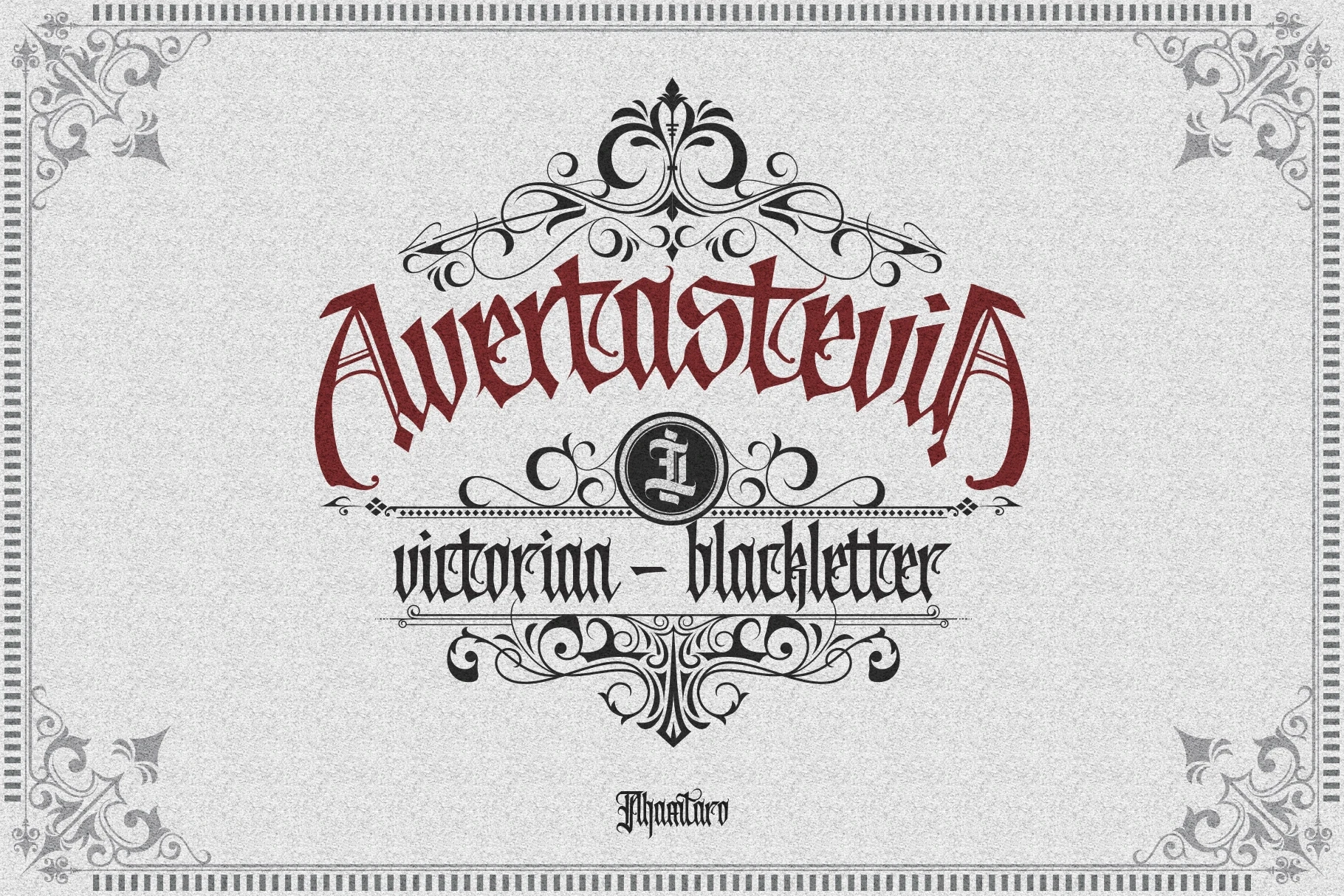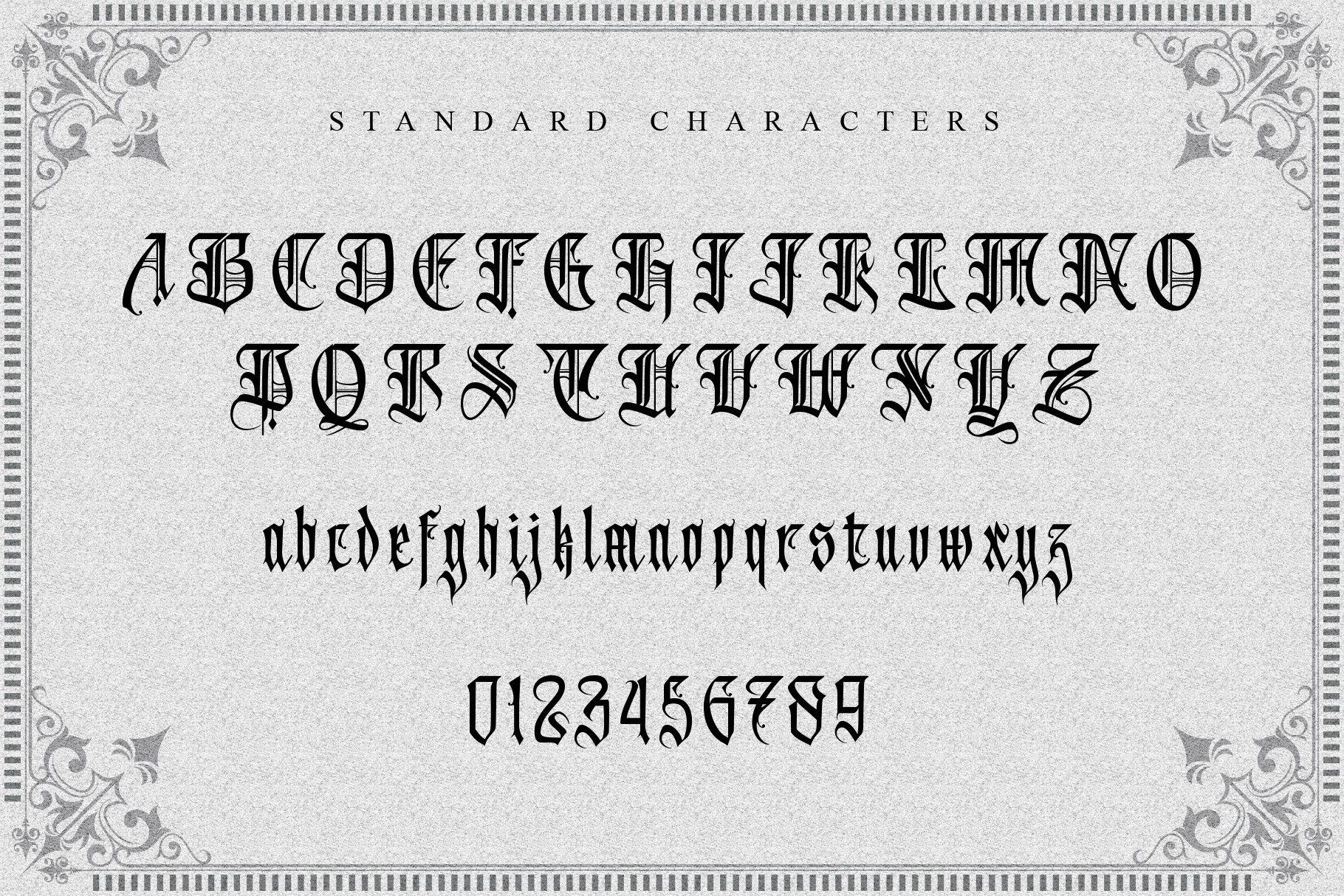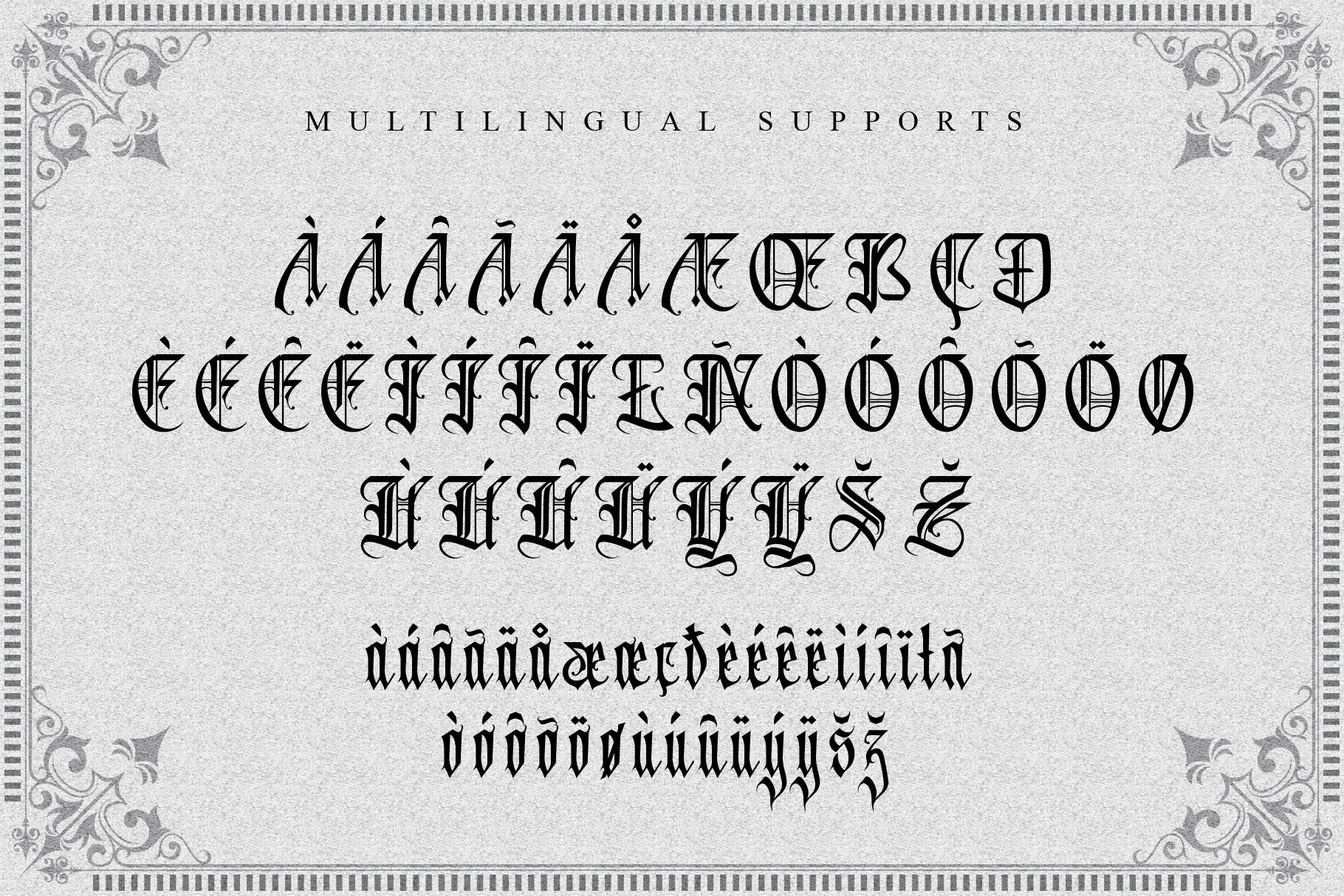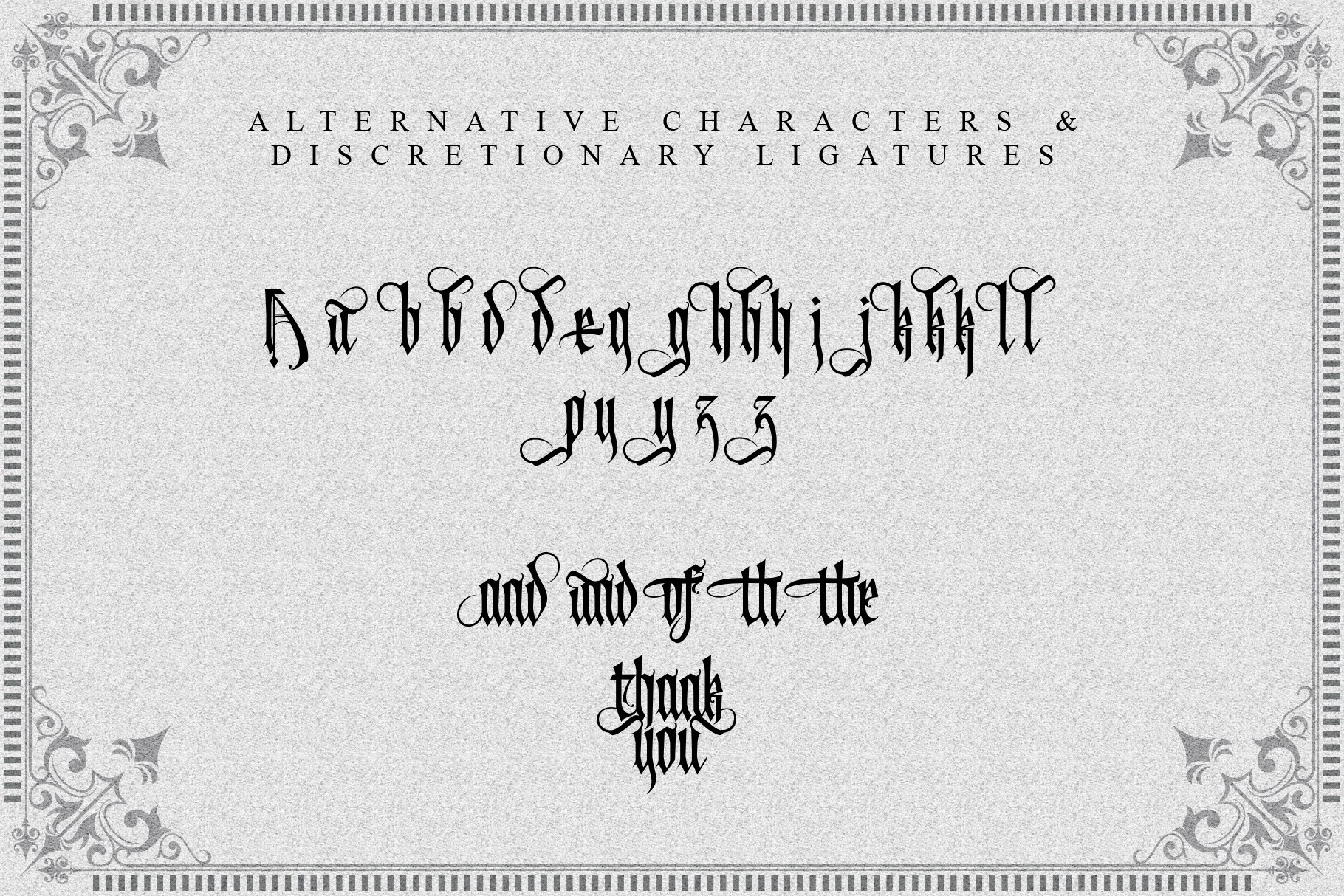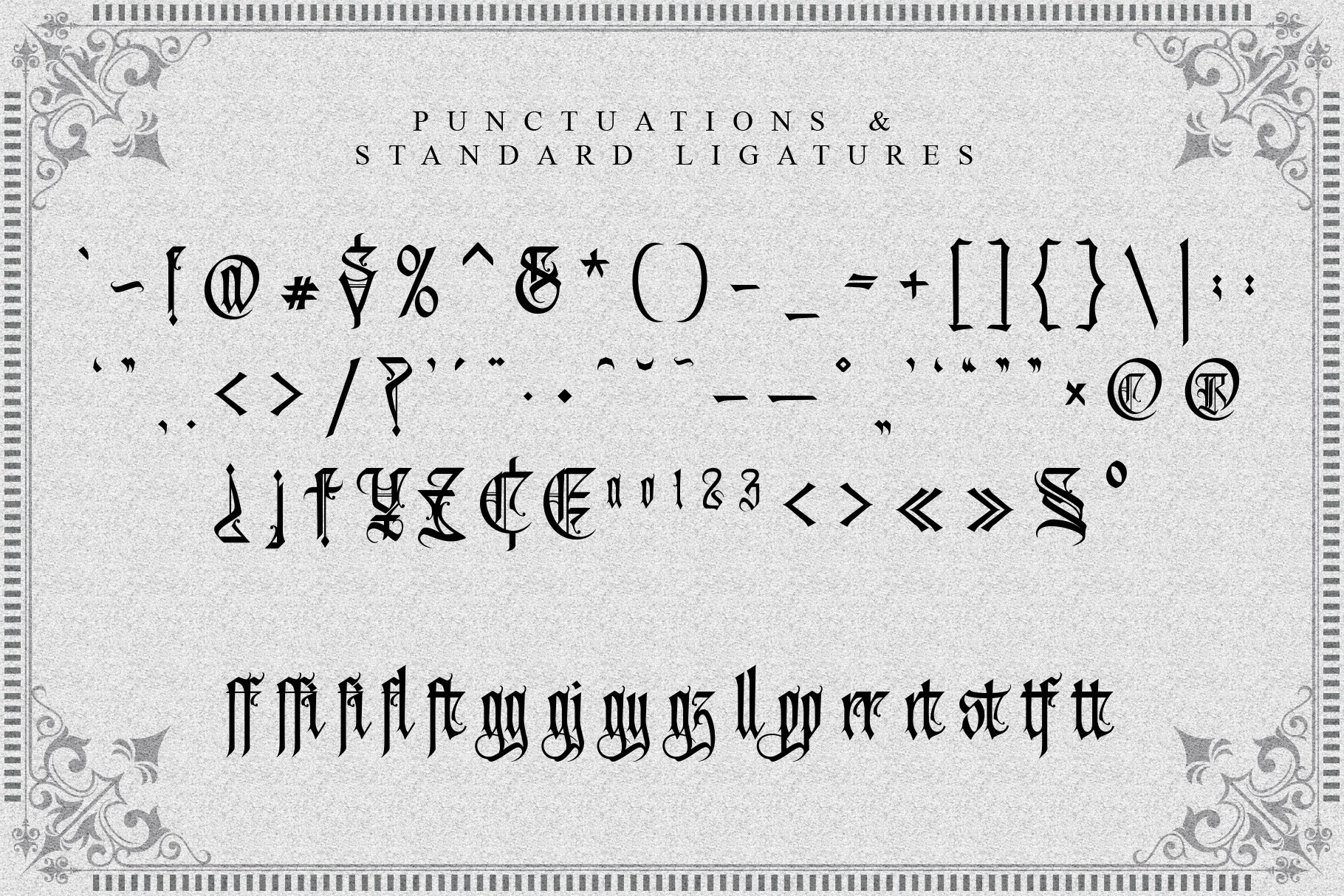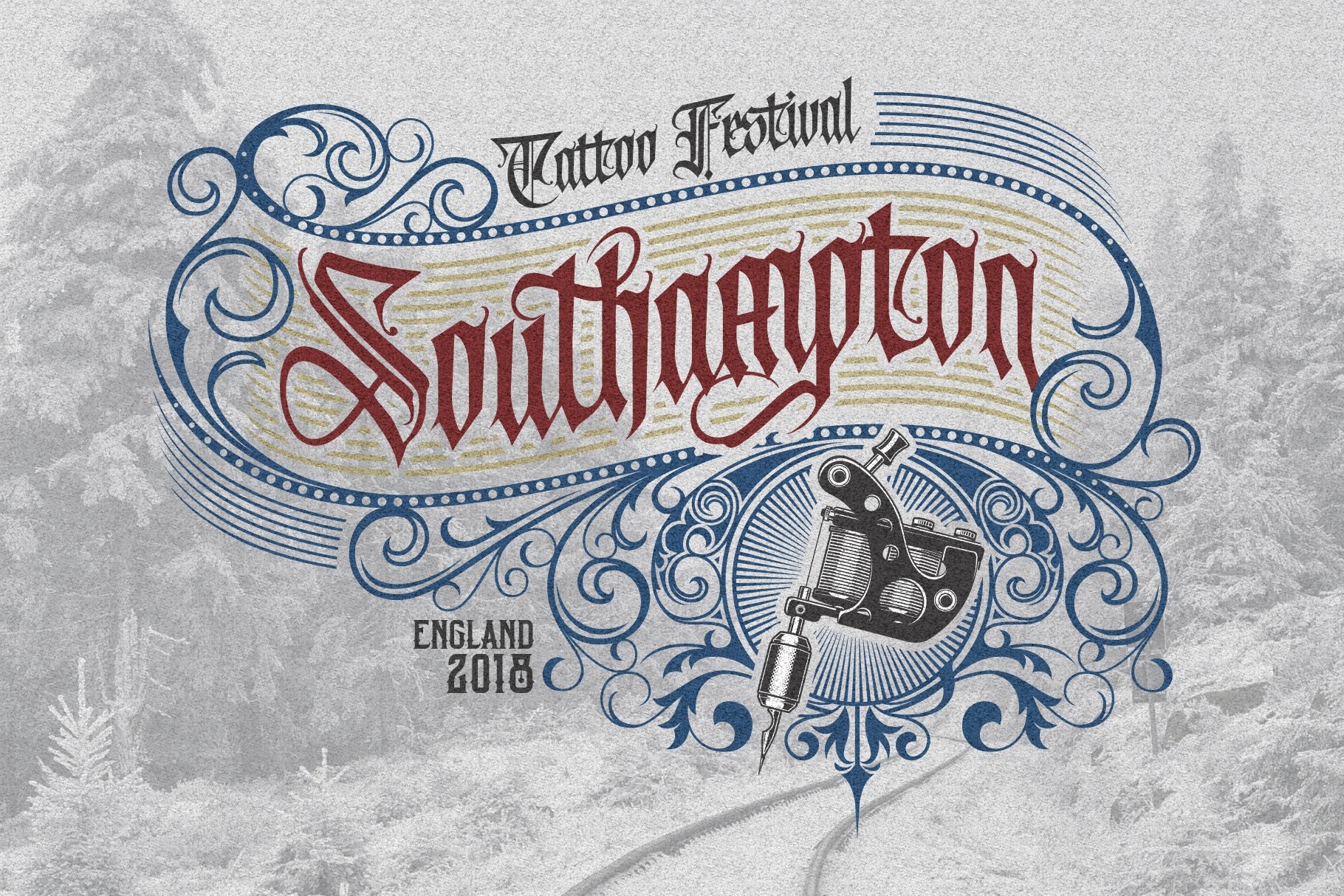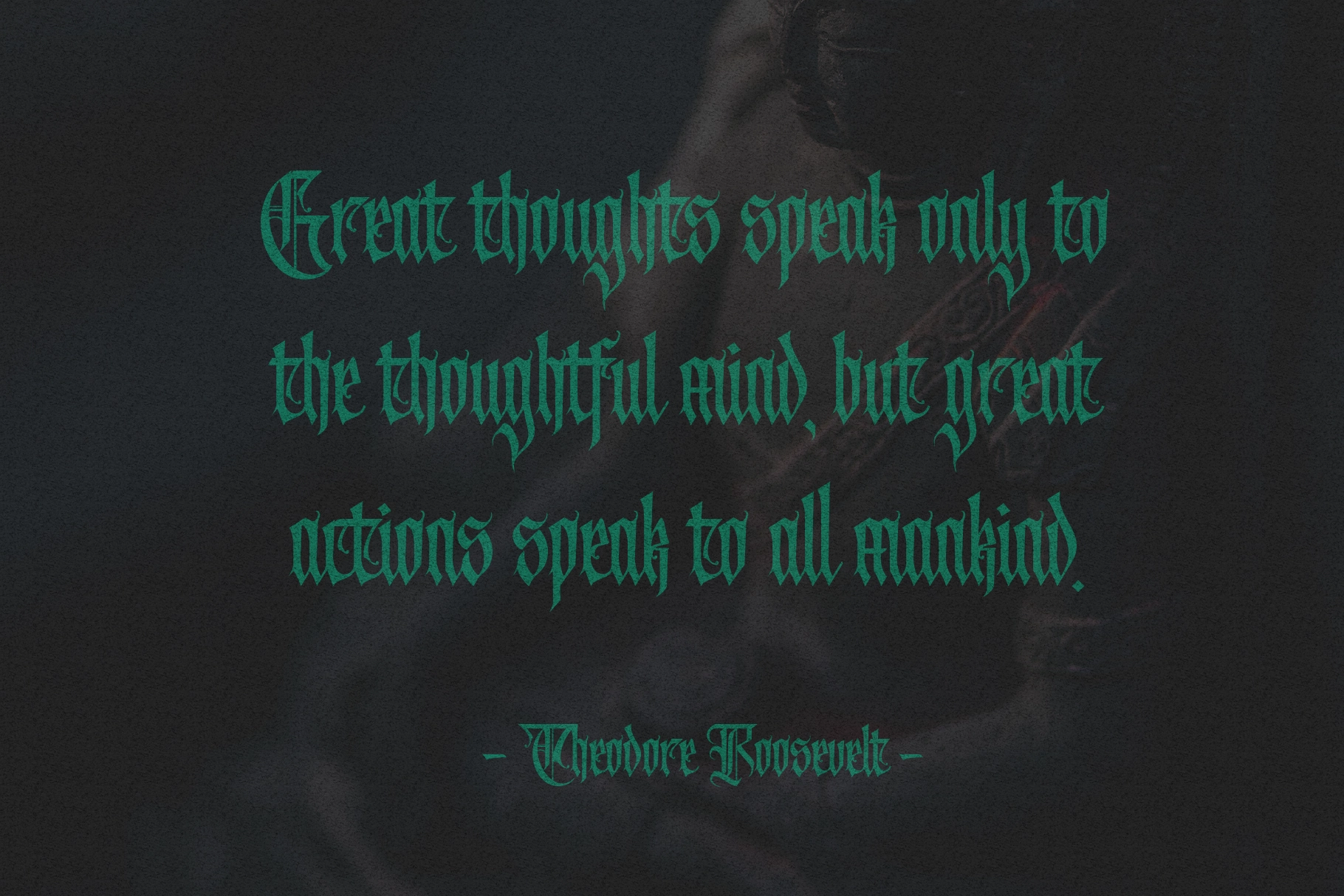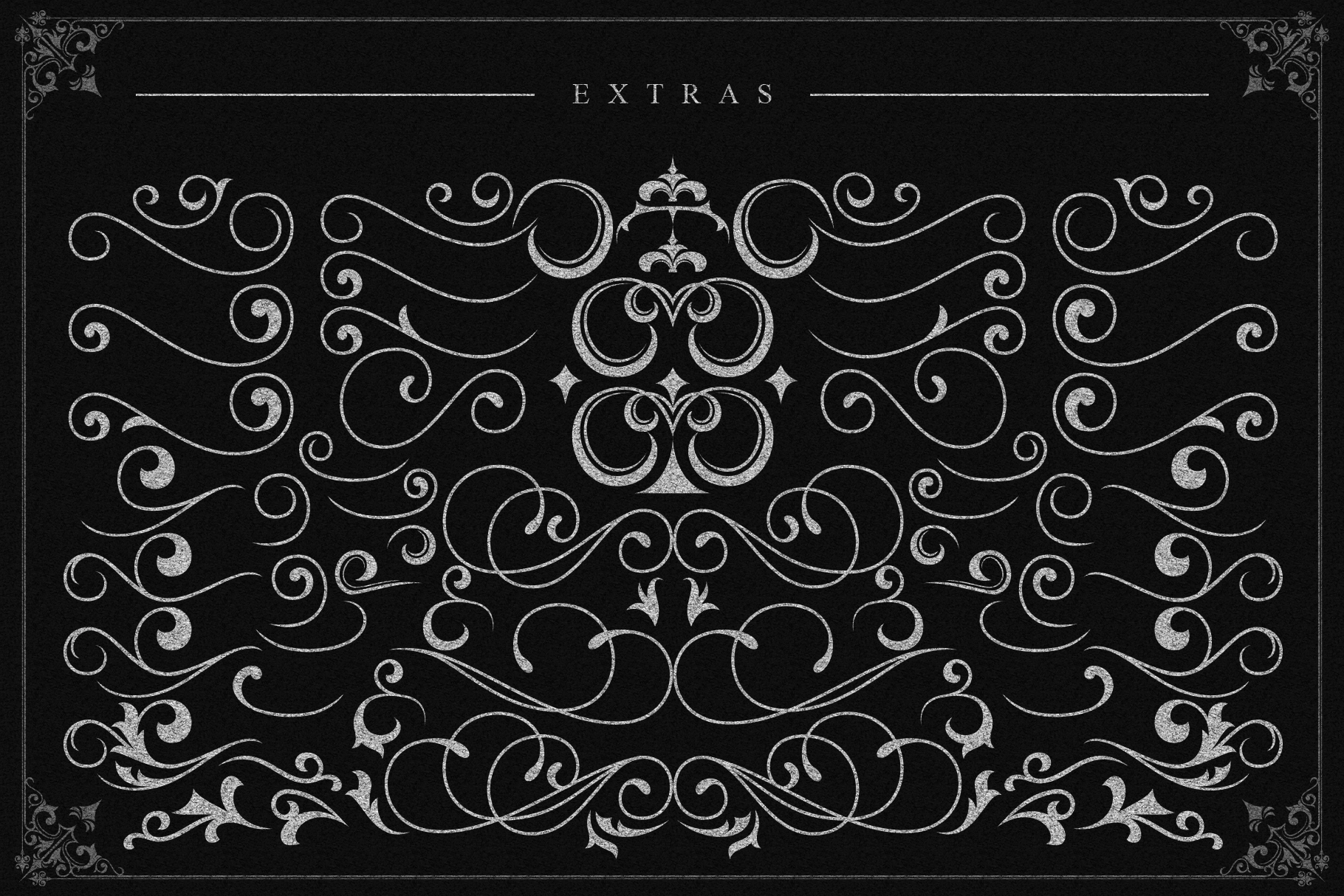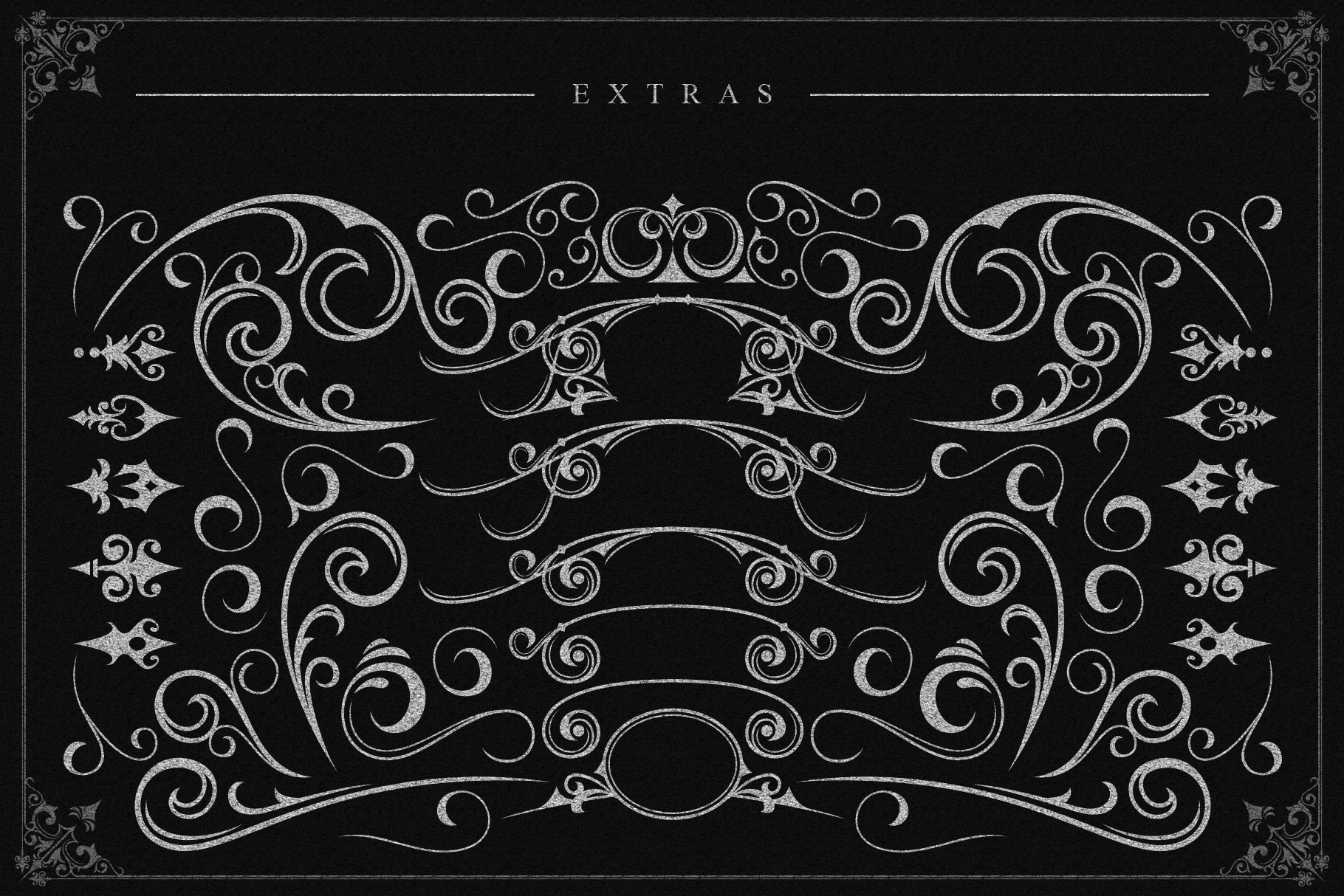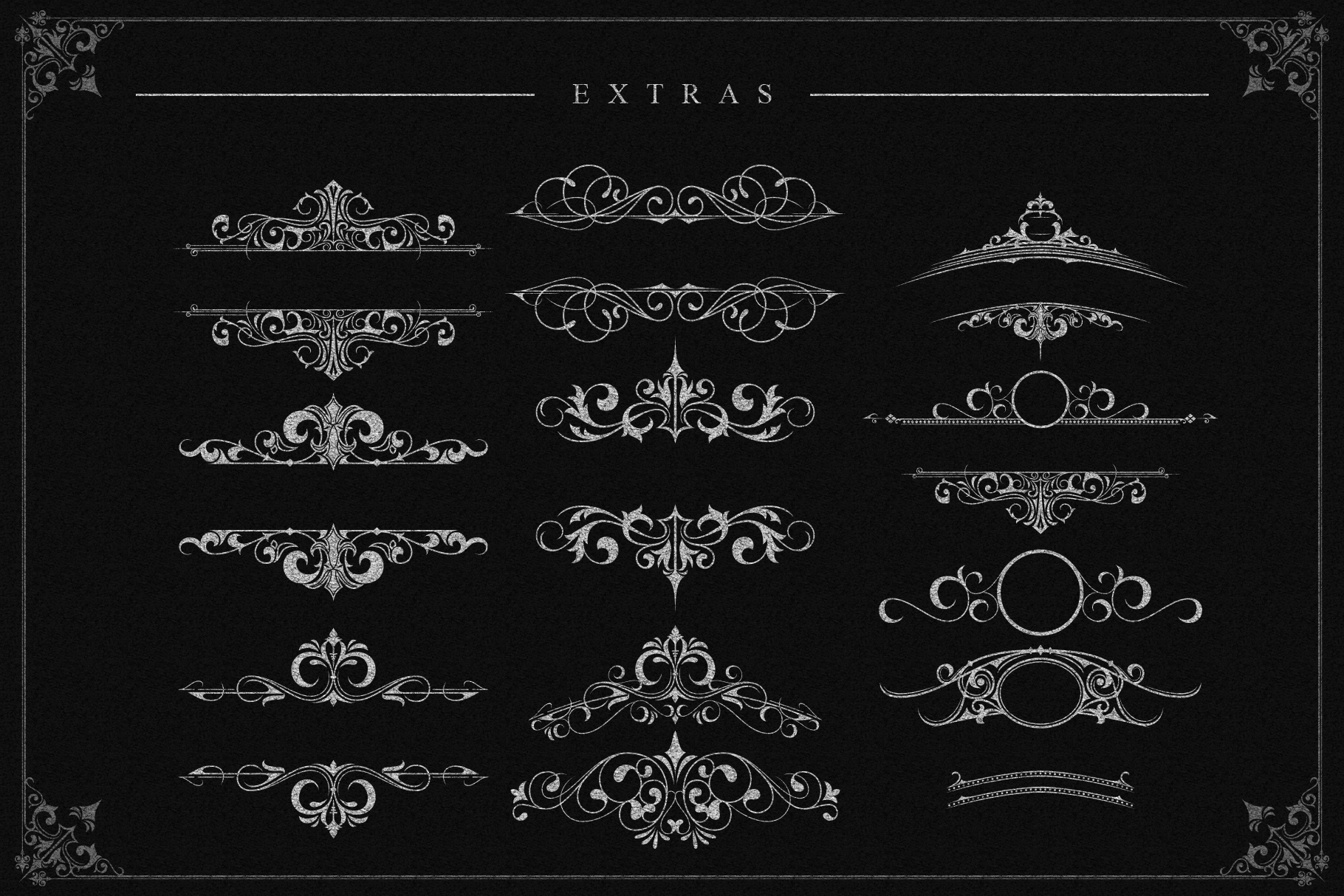
Avertastevia - Victorian Blackletter Font
Sharp, ornate, and proudly dramatic , this blackletter typeface is made for lettering with old-world authority. Its high-contrast strokes, split inline details, pointed terminals, and elaborate swashes give each word a formal gothic character without losing its handmade calligraphic edge.
Avertastevia works well for tattoo logos, barbershop identities, music event posters, badge designs, clothing graphics, album covers, brewery labels, book covers, editorial headers, packaging, certificates, monograms, and more. The extra ornaments add a ceremonial finish for frames, dividers, crests, and layouts that could use a little candlelit menace — professionally, of course.
• Standard Ligatures
• Discretionary Ligatures
• Alternate Characters
• Extra ornaments